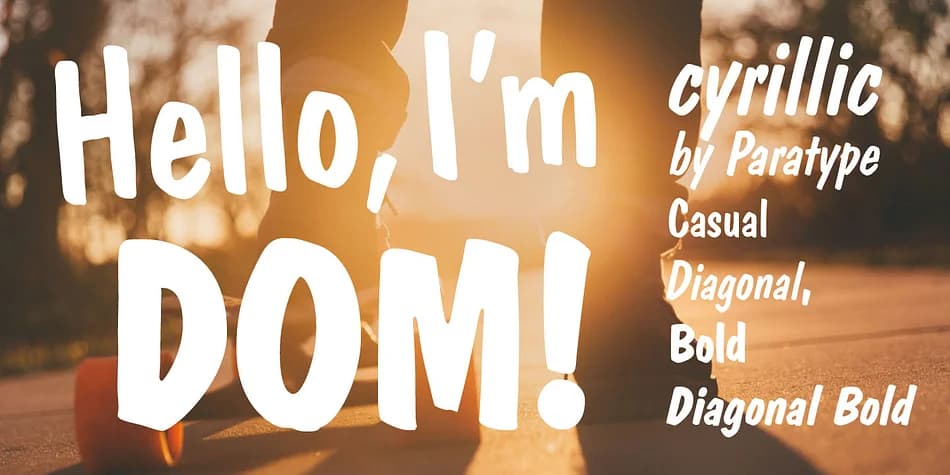
This typeface captures a leisurely, hand-drawn warmth that feels personal without being precious. Dom Casual BT, originally designed by Peter Dombrezian for American Type Founders in the early 1950s and updated by ParaType, is an informal script that mimics the loose, confident mark-making of brush lettering.
What makes Dom stand out is its refreshingly unstructured character. The letters sit slightly offset from each other, vertical strokes taper at different heights, and the curves dance rather than align with mathematical precision. This unpredictability is exactly what gives it life. It's a natural choice for wedding invitation suites, boutique product labels, coffee shop menus, and hand-lettered greeting cards where a conversational tone matters more than rigid structure. You get the warmth of handwriting without the inconsistency that would make body copy hard to read.
Coming in four styles with 560+ glyphs per style and 12 OpenType features, Dom handles extended Latin and Cyrillic scripts, making it adaptable across markets and languages. Pair it with a clean geometric sans-serif for body text to ground its chattiness, and you've got a combination that reads both approachable and intentional. You can grab Dom Casual BT on Creative Fabrica when you're ready to add that human-touched warmth to your next project.
- Eye-catching, Bold
Dom Casual BT Font is a display font that shines as a display or heading face. Pair it with a clean sans-serif or serif font for body text โ the contrast creates a clear hierarchy while the two styles stay balanced and easy to read.
Dom Casual BT Font